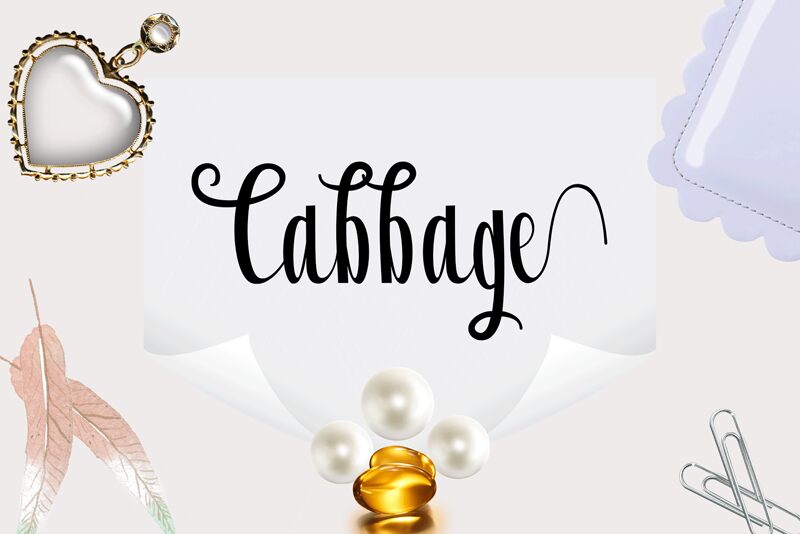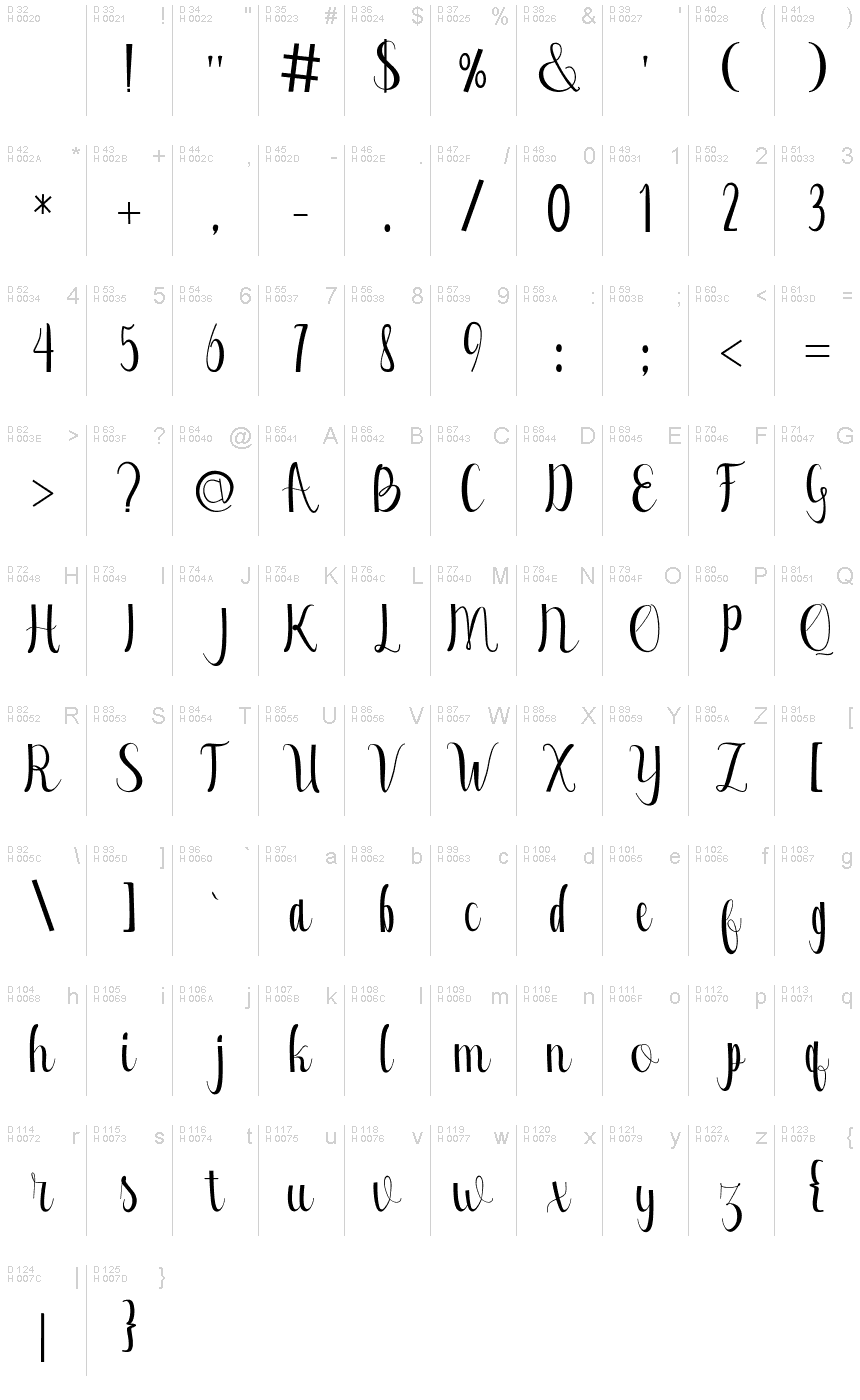
Cabbage Free
Cabbage is a script font that has the characteristic handwriting, it is very suitable to make certain label and event business and you could be using for a unique piece. Visit here to get full version